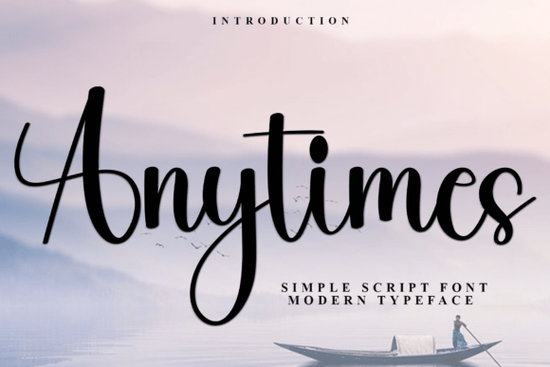
If you're looking for a friendly, hand-drawn script font that feels warm and approachable not stiff or overly formal Anytimes Font is worth your attention. It’s not flashy or ultra-trendy, but it has quiet confidence: soft curves, gentle contrast in stroke weight, and a natural rhythm that makes it easy to read at medium sizes. Whether you’re designing greeting cards, labeling handmade soap jars, or building a small business brand kit, this font adds personality without shouting.
What kind of projects does Anytimes Font work well for?
It shines where warmth and authenticity matter. Think: baby shower invites, boutique packaging labels, café chalkboard menus, teacher resource headers, or even subtle text overlays on Instagram Reels for craft tutorials. Because its letterforms have a relaxed, slightly uneven charm like handwriting done with care it avoids feeling generic or robotic.
Unlike some script fonts that demand perfect spacing or only work at large sizes, Anytimes Font holds up well across uses. You’ll find full Latin character sets (including accented letters), numerals, punctuation, and basic symbols so it’s ready for real-world multilingual needs, like French or Spanish phrases on printable wall art or bilingual shop signage.
How easy is it to use in everyday design tools?
One thing to keep in mind: because it’s a natural script style, avoid using it for long paragraphs or tiny body text. It’s best suited for headlines, short quotes, logos, or decorative accents. For pairing, try it with clean sans-serifs like Montserrat or Open Sans or softer companions like Daintyline Font, which shares its gentle energy but offers more structure for supporting text.
How does it compare to other popular script fonts?
Compared to bolder, high-contrast scripts like Cutie Slime Duo Font, Anytimes feels quieter and more grounded less “playful cartoon,” more “thoughtful handwritten note.” It’s also less formal than calligraphic styles like Lasso Lore Font, which leans into elegant flourishes. If you’ve tried Cute Dog Font and found it too whimsical for your brand voice, Anytimes might be the balanced middle ground you’ve been searching for.
For hobbyists who cut vinyl or paper crafts, its smooth outlines translate cleanly to cutting machines no jagged edges or thin hairlines that risk breaking during weeding. And since it’s designed with open-source platforms in mind, it renders reliably on Linux-based systems or web apps that rely on system fonts.
Where can you see it in action before downloading?
Other fonts in the same category often lean heavier on decoration or trend-driven details (think glitter textures or exaggerated swashes). Anytimes stays focused on clarity and usability first which makes it easier to adapt over time, whether you’re updating your logo in two years or reusing a design template across seasons.
A quick checklist before you download
- ✅ You need a script font that’s legible at 24–48 pt for physical products or social graphics
- ✅ You want something versatile enough for both digital and print but not so stylized it limits reuse
- ✅ You value consistent rendering across Windows, macOS, and open-source design tools
- ❌ You’re looking for variable weights, stylistic alternates, or extensive language support beyond Western European
If most items check out, Anytimes Font is likely a practical, low-friction addition to your toolkit not a one-off novelty. Try pairing it with Daintyline Font for layered headings, or test it alongside Lasso Lore Font if you want to explore contrast between relaxed and refined script moods.